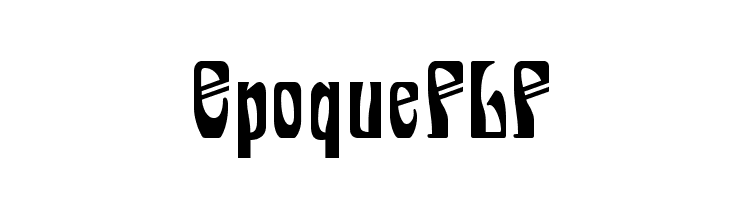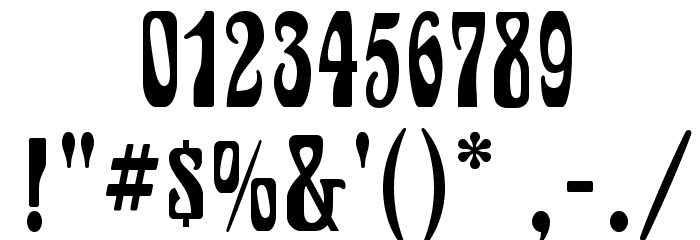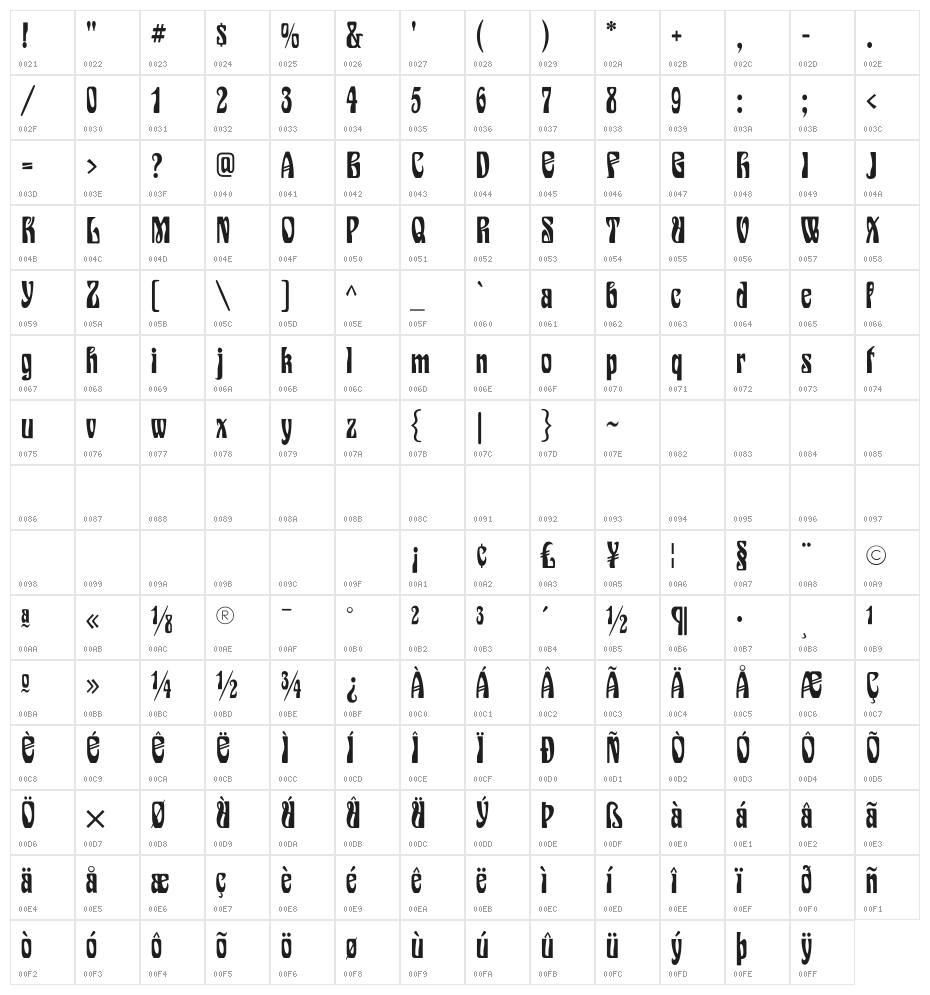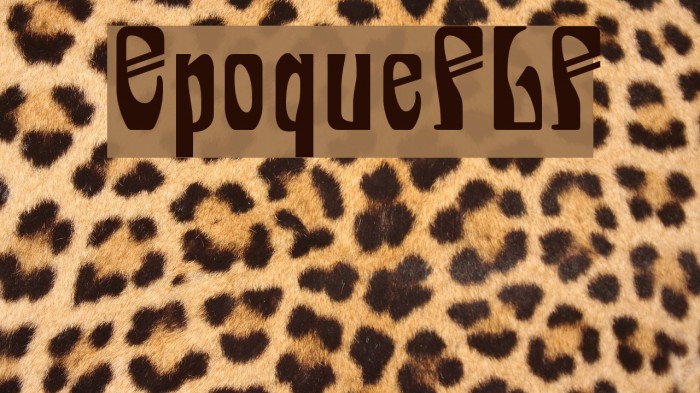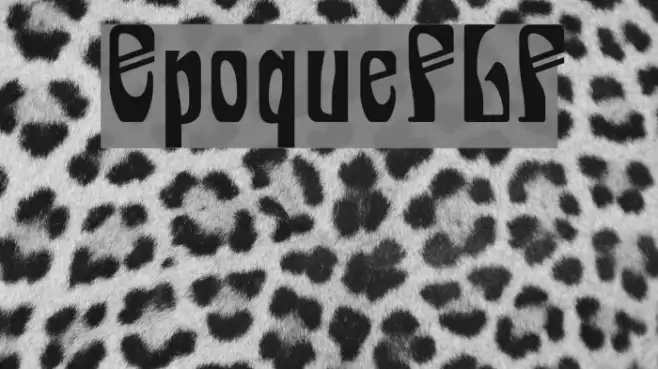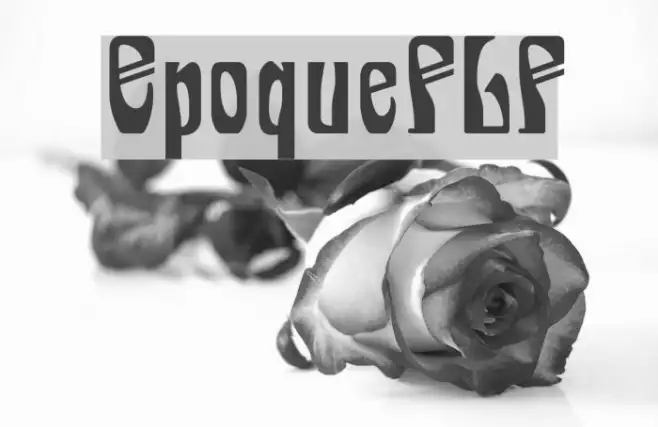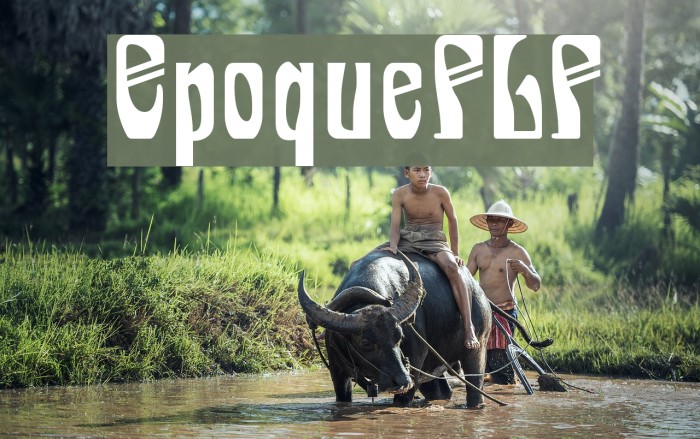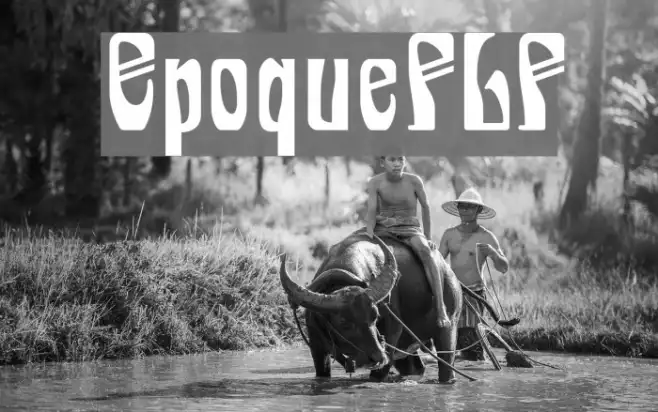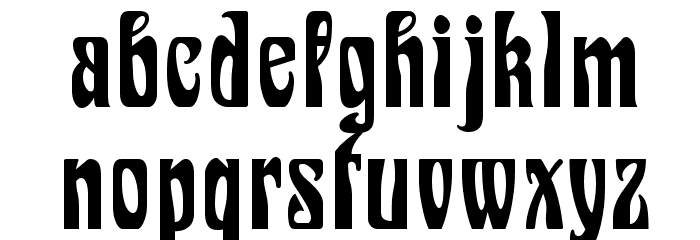
EpoqueFLF Font
EpoqueFLF Description
This font features a bold and decorative style with unique, artistic flair. The uppercase letters are characterized by their thick, dramatic strokes and intricate detailing, giving them a vintage and ornamental appearance. The lowercase letters maintain the decorative theme, with some characters featuring distinctive loops and curves. The numerals are bold and consistent with the overall style, ensuring readability while maintaining the decorative essence. The special characters are creatively designed, adding to the font's unique personality. This font is perfect for projects that require a touch of elegance and creativity, such as branding, posters, and artistic designs.
| Overall Style | Vintage, Decorative |
| Proposed Projects | Ideal for branding, posters, artistic designs, and any project needing a creative touch. |